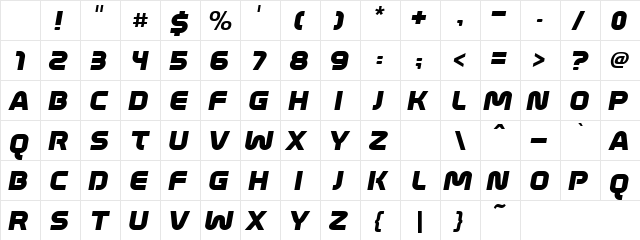
Mathmos Original is a composed and adaptable typeface that performs quietly and consistently across a wide range of design contexts. The slanted form adds forward momentum and visual energy.
Pro Tip: Use Mathmos Original for emphasis, pull quotes, and subheadings where its slanted energy can add rhythm to the layout.